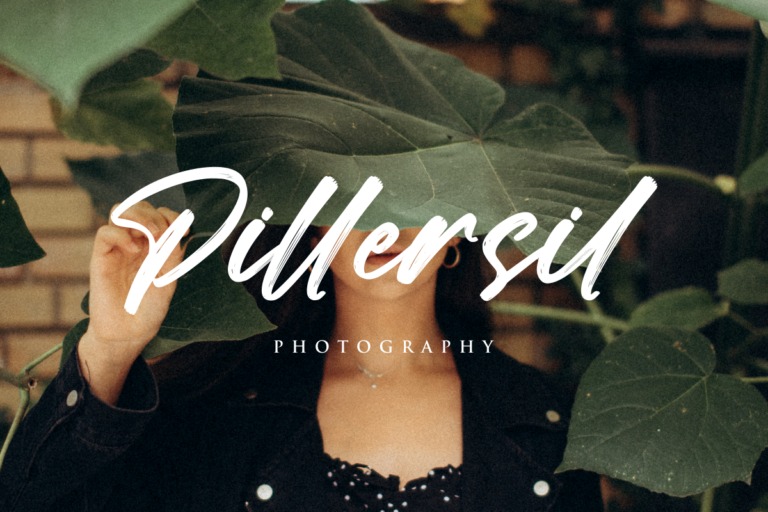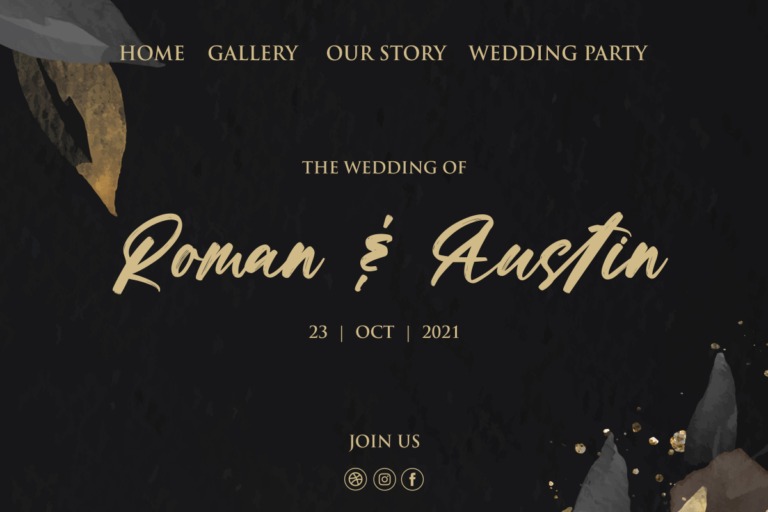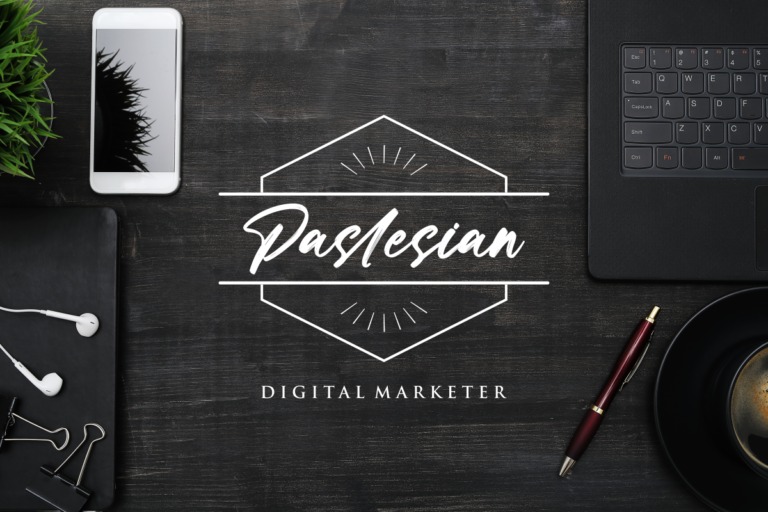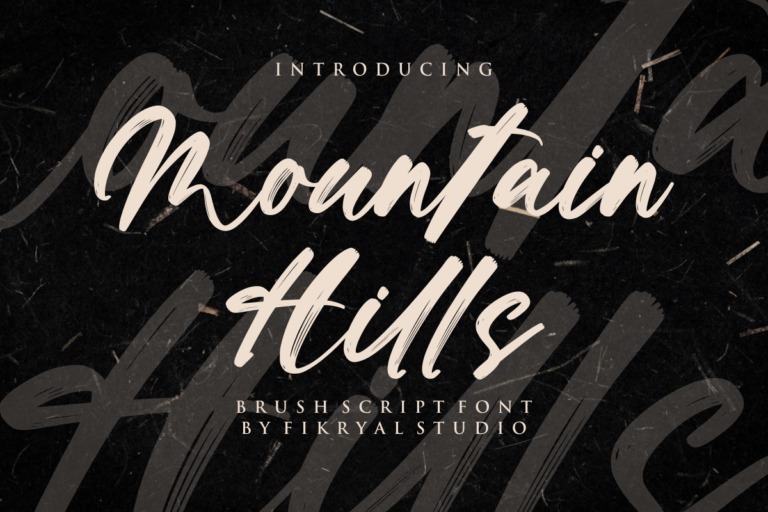
Mountain Hills Brush Font is a feminine display typeface that is made with hand lettering with the brush pen. It’s perfect for logo, branding, title, social media posts, advertisements, product packaging, product designs, label, photography, watermark, special event, magazine, web designs, etc.
Mountain Hills